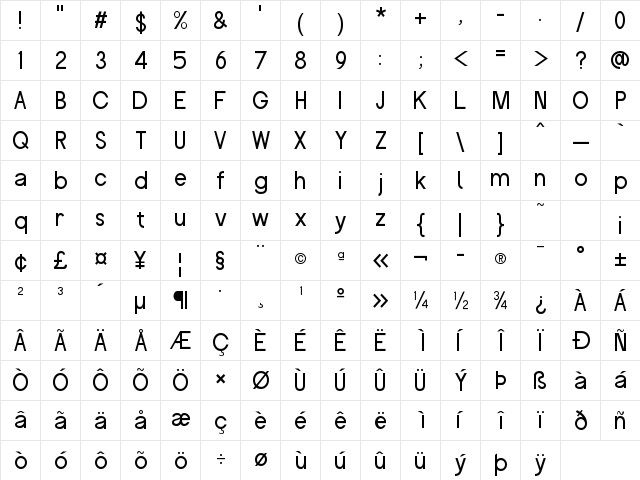
ESL Gothic Unicode Medium
| Designer | Ethan S. Lamoreaux |
Design Context for ESL Gothic Unicode Typeface
ESL Gothic Unicode brings the precise, column-aligned rhythm of monospaced typography to designs that value technical clarity and systematic order.